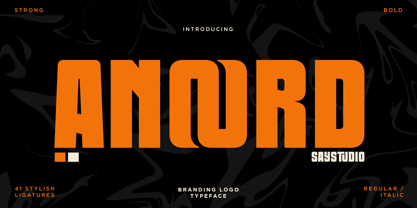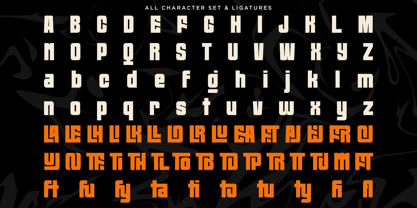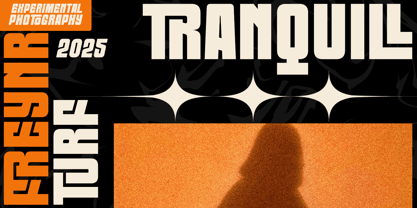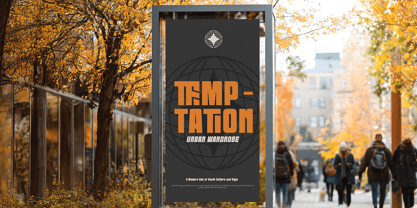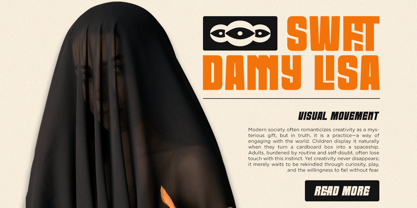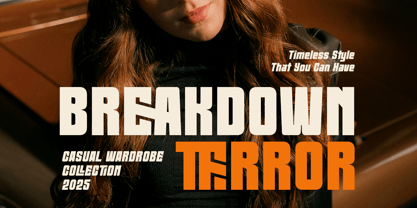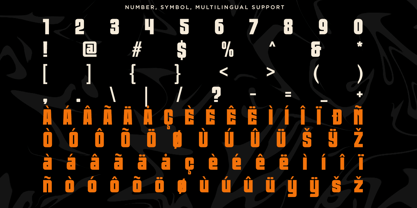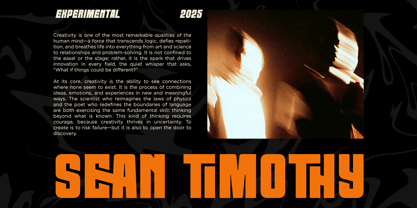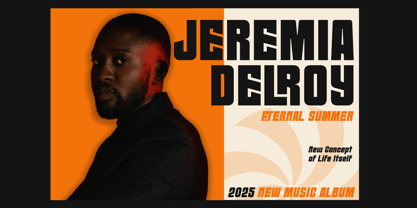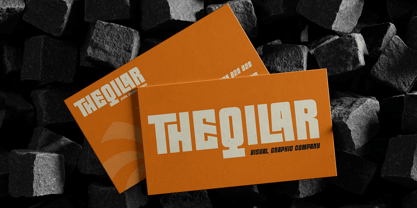
Anoord
by Say Studio
Anoord is a bold condensed display font designed to create an unforgettable visual impact. With its strong geometric construction, modern proportions, and eye-catching ligatures, this typeface is perfect for projects that demand confidence, power, and contemporary style.
Featuring 41 stylish ligatures, multilingual support, Anoord offers exceptional flexibility for both print and digital design. Whether you're crafting bold branding, impactful headlines, sports graphics, editorial layouts, posters, album covers, packaging, or social media campaigns, Anoord delivers a clean and commanding presence.
Ideal for designers seeking a modern condensed font with premium aesthetics, Anoord combines versatility with personality, making it an excellent choice for logos, advertising, fashion branding, magazine covers, YouTube thumbnails, web banners, product packaging, and creative visual identities.
• Regular and Italic
• Stylistic Ligature
• Uppercase and Lowercase
• Number, Symbol, and Punctuation
• Multilingual Support
Designers: Mussyayin
Foundry: Say Studio